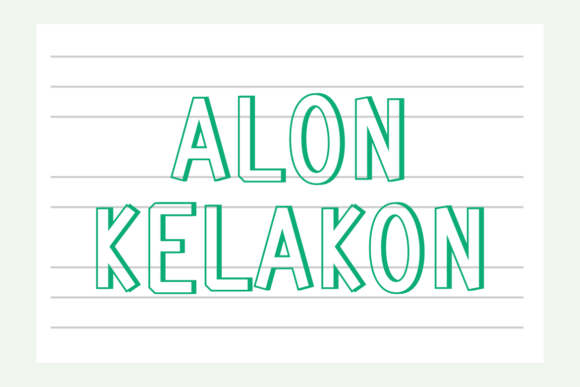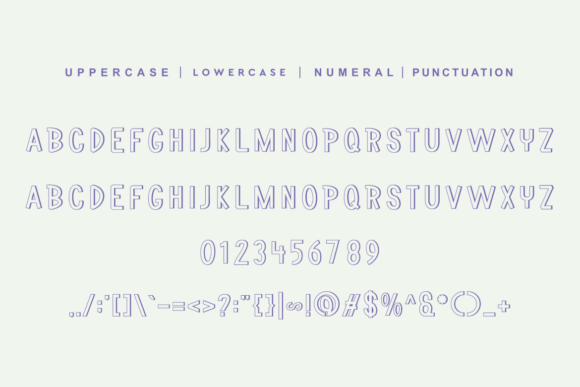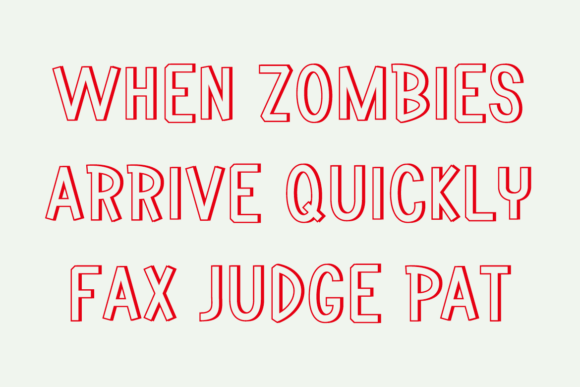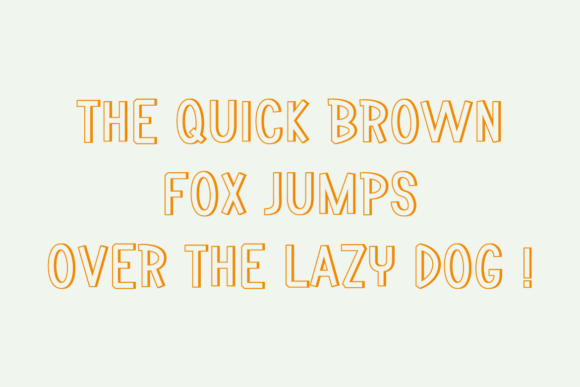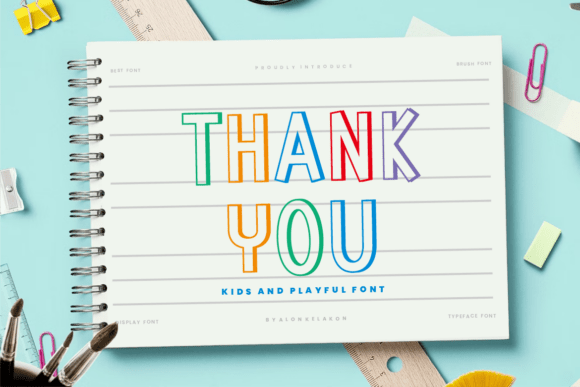
Introduction to School Browad Font
School Browad is a sweet and friendly font.
School Browad Font offers exceptional quality and versatility, making it a valuable addition to your design toolkit. Whether you’re creating for personal projects or commercial use, School Browad Font delivers professional results.